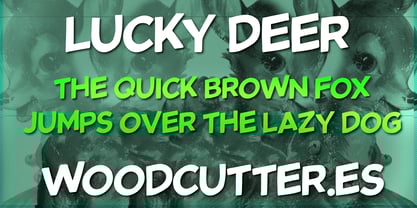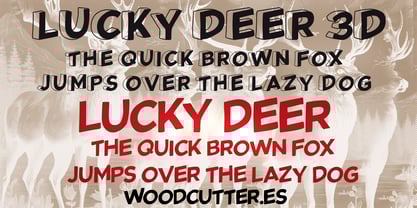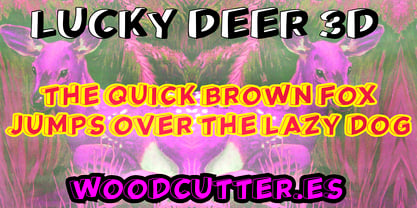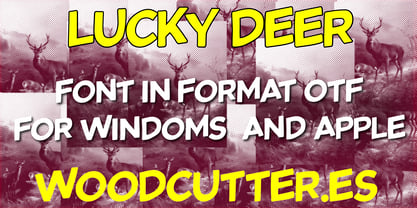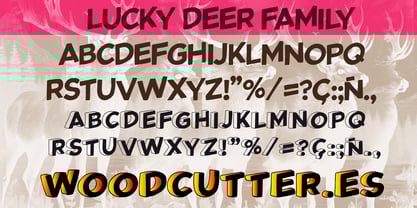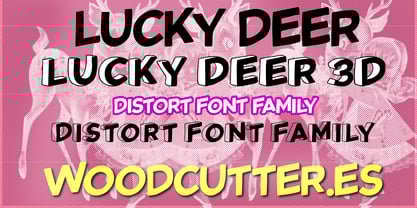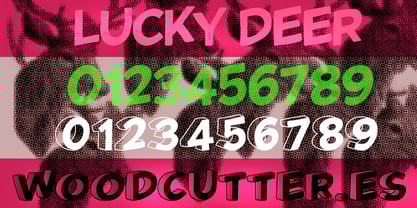
Lucky Deer
by Woodcutter
The Lucky Deer Font Family was designed by Jordi Manero and published by Woodcutter. Lucky Deer contains 2 styles and family package options. More about this family
Lucky Deer is a distorted uppercase font family designed to stand out with bold visual presence and rebellious personality. Each letter features irregular, warped shapes, as if twisted by wild energy or intentional graphic glitch. Its raw, imperfect, and edgy style makes it perfect for daring designs, alternative music artwork, underground posters, or any creative project that seeks to break from tradition.
The family includes two variations:
Lucky Deer, with bold, solid black distorted letters that convey a sense of controlled chaos.
Lucky Deer 3D, a variant that adds depth and three-dimensional relief to each character, enhancing its visual impact with a sculptural look.
Both versions offer a bold and expressive typographic tool for projects that aim to transmit energy, attitude, and unapologetic originality.